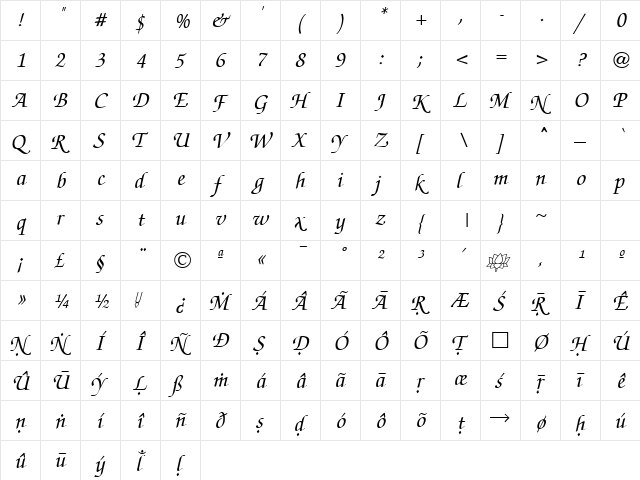
Rama-ZapfChancery Italic
Design Context for Rama-ZapfChancery Typeface
Rama-ZapfChancery takes a measured approach to typography — its balanced proportions and neutral character make it a reliable workhorse for both digital and print work. Its italic angle brings a sense of urgency and motion to the letterforms.
Pro Tip: Use Rama-ZapfChancery for emphasis, pull quotes, and subheadings where its slanted energy can add rhythm to the layout.